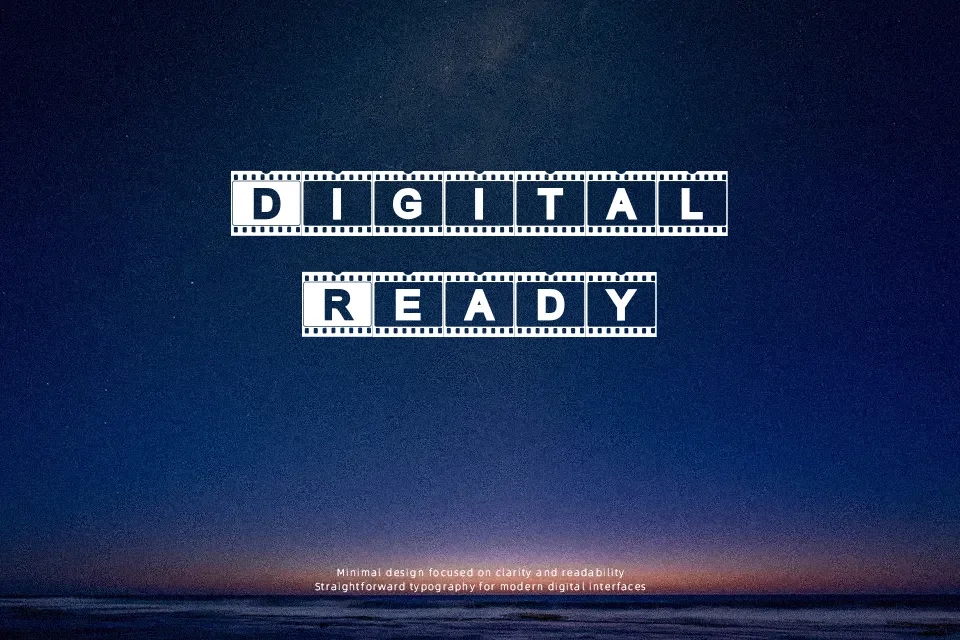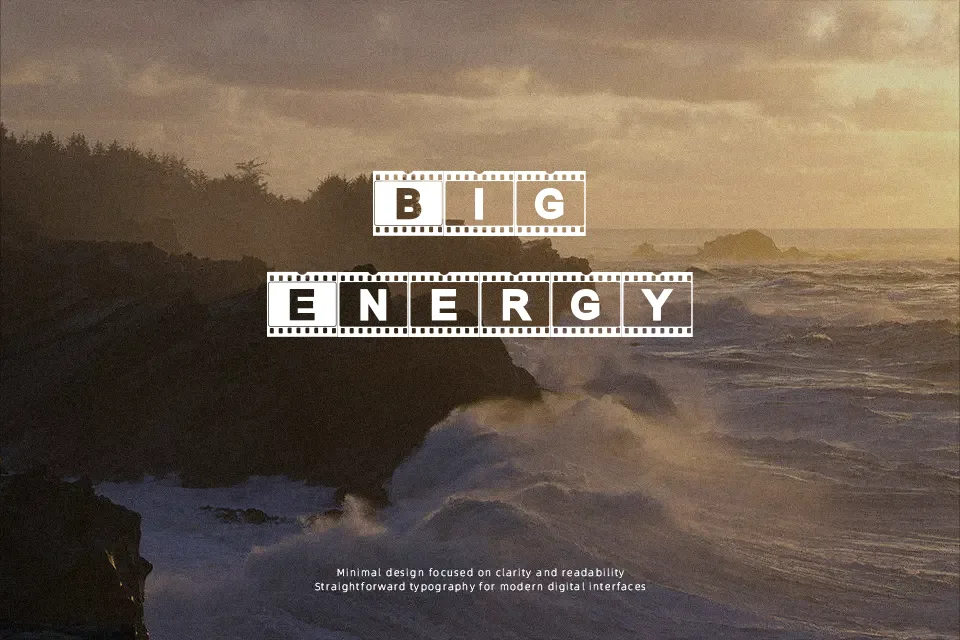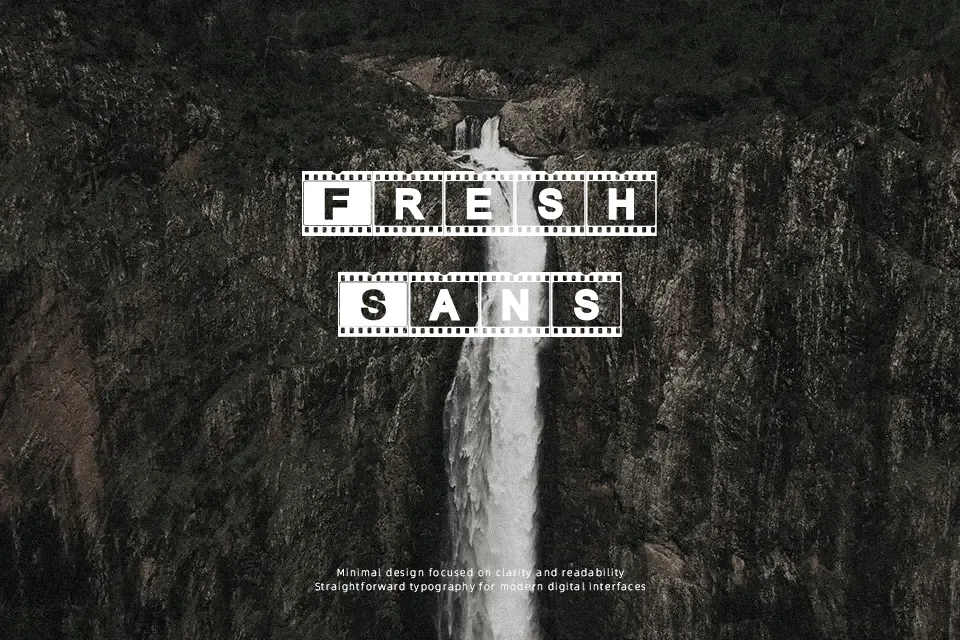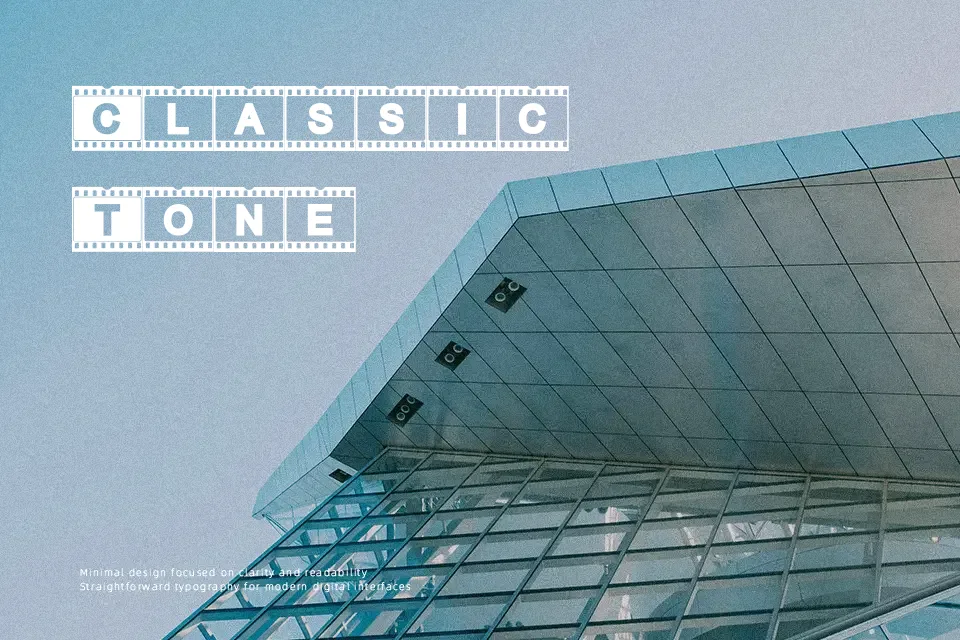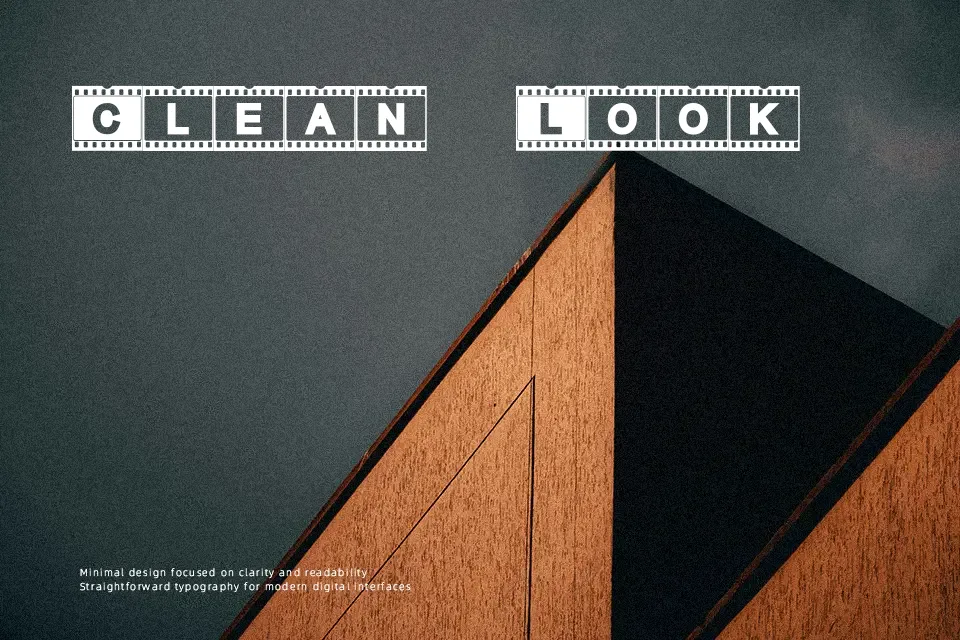
AC Fimstrip Font
Designed by Adrian Candela
Each letterform in AC Fimstrip arrives housed within a film reel cell — blocky uppercase shapes framed by perforated strip edges that immediately read as retro-cinema. Stroke weight is heavy and uniform, with minimal contrast, lending the typeface a flat, graphic quality rather than a calligraphic one. The spacing is set wide enough that the frames don’t crowd each other, though that same generous rhythm means setting long phrases becomes a layout challenge fast. It works best as a one- or two-word headline — think film screening posters, retro event flyers, or niche entertainment logos. Lowercase characters are absent, limiting flexibility to all-caps use only. Anyone needing body text or mixed-case typesetting should look elsewhere; this is strictly a title treatment built around a single visual concept.
Best For:- Film festival poster headlines
– Retro cinema or drive-in event branding
– Entertainment logo lockups
– Vintage-themed social media covers
Not Ideal For:- Body text or long-form copy
– Mixed-case typesetting (uppercase only)
– Corporate or formal documents
– Minimalist or modern UI design
Perfect for film, headline, and logo, with a bold and decorative style.